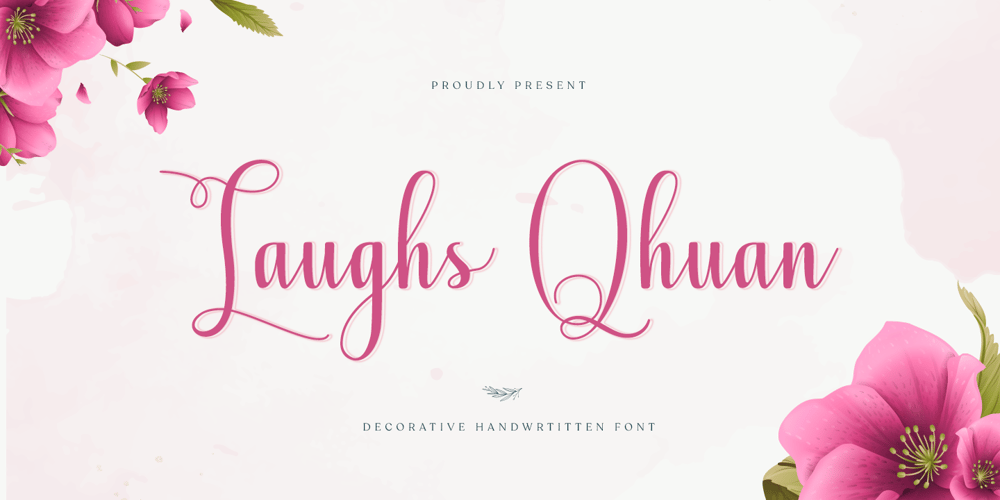
Laughs Qhuan
Laughs Qhuan font
Laughs Qhuan Font Family was designed by Eep Apringga and published by Namara Creative Studio. Laughs Qhuan contains 1 styles and family package options. Decorative handwritten script font with natural touch, perfect for creating neat designs with a personal touch. It’s perfect for branding projects, logo, wedding designs, social media posts, advertisements, product packaging, product designs, label, photography, watermark, invitation, stationery and any projects that need handwriting taste.Features : OTF File with Standard glyphs Alternates, Ligatures and Multilingual Support Works on PC & Mac with Simple installations PUA Encoded Characters, Fully accessible without additional design software. Hope you enjoy with our font!